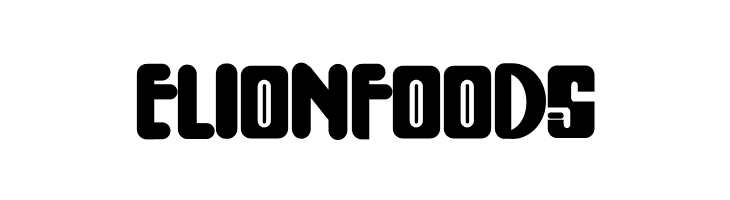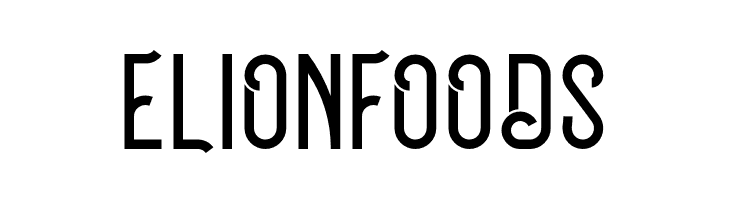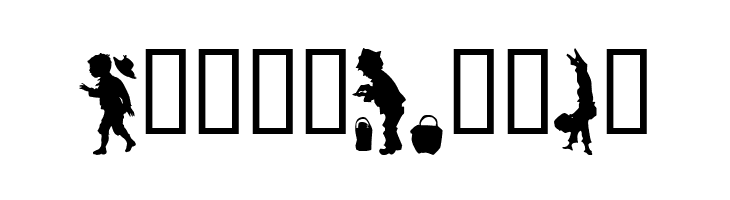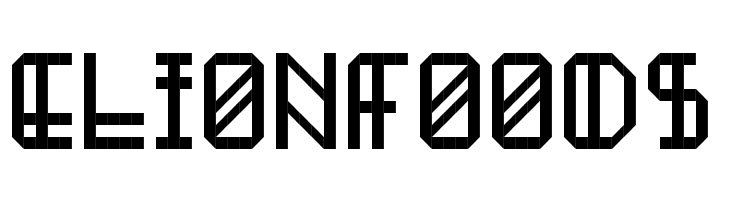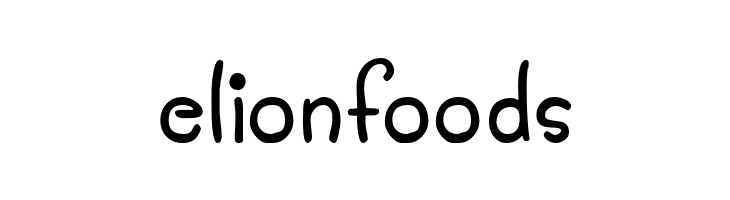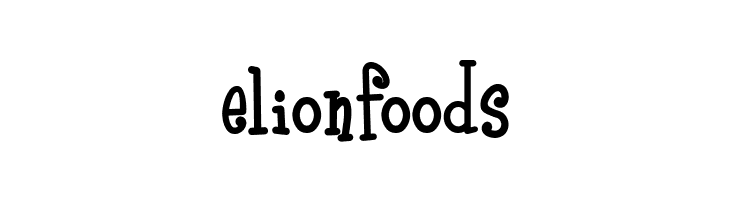
• Boys Flower
A bold, geometric font with playful and rounded characters.
• Boys Sampler Pack
• BOYSANDDEMO
A bold, playful font with unique curves and straight lines.
• Boyuna Regular
A bold, geometric font with angular lines and a futuristic style.
• Boyz R Gross NF
A playful and whimsical font with bold, rounded letterforms and a quirky aesthetic.
• Boyz R Gross NF Regular
A playful, bold font with quirky, rounded characters and a cartoon-like style.
• Boyz R Gross NF Shadow
A bold, playful font with a distinctive shadow effect and whimsical style.
• Boyz R Gross Shadow NF
A playful, bold font with a shadow effect and whimsical, cartoonish style.
• BoyzClubSSK
• BoyzRGross
A playful, bold font with rounded characters and a whimsical style.